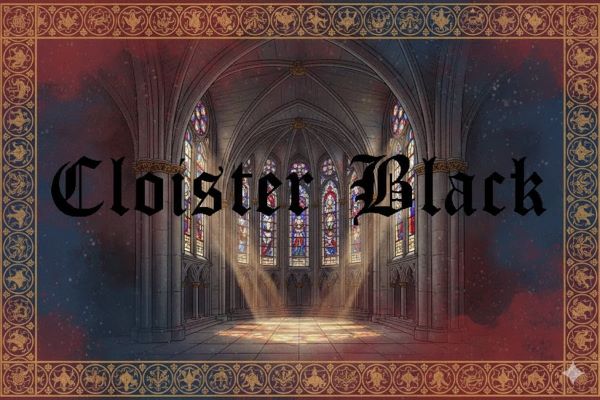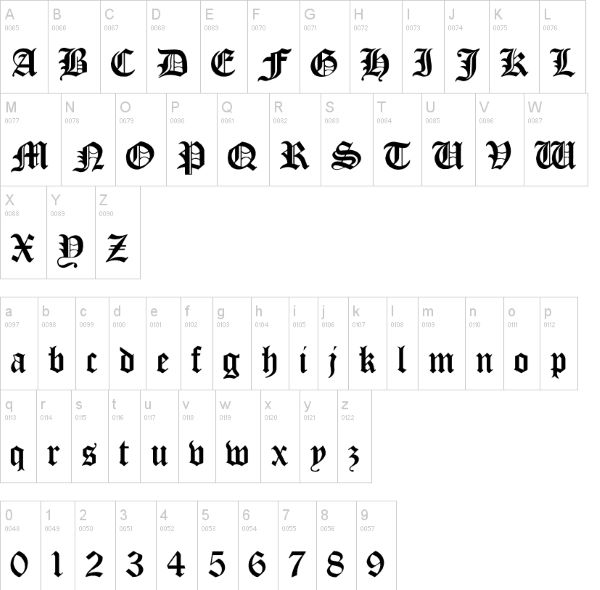
Cloister Black Font
Cloister Black Font is a classic blackletter (Gothic) typeface with ornate, medieval-style letterforms. Its dramatic strokes and historic character make it perfect for certificates, book covers, logos, tattoos, and vintage or fantasy-themed designs. Cloister Black delivers a strong, traditional, and timeless typographic presence.
➤ Font Name: Cloister Black
➤ Designer: Dieter Steffmann
➤ Style: Gothic